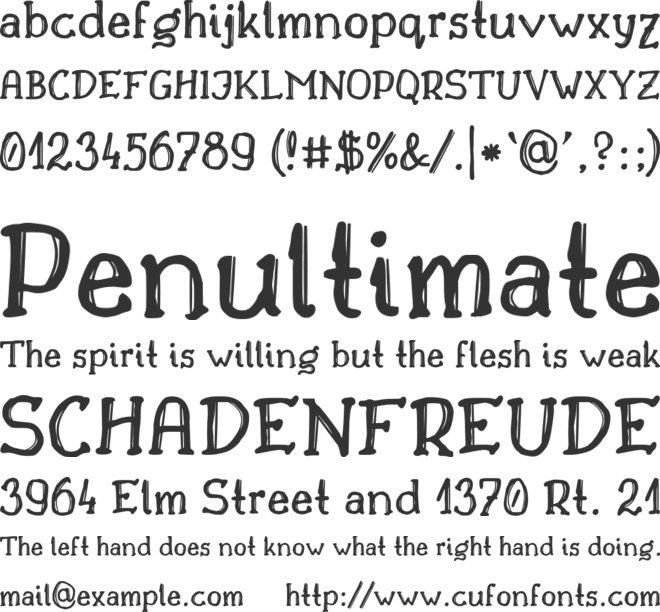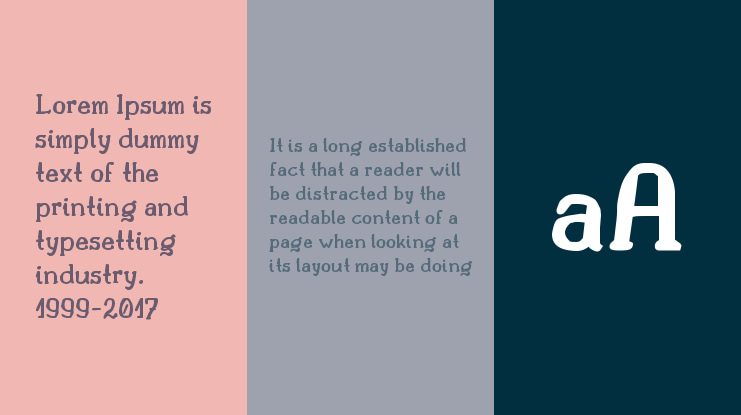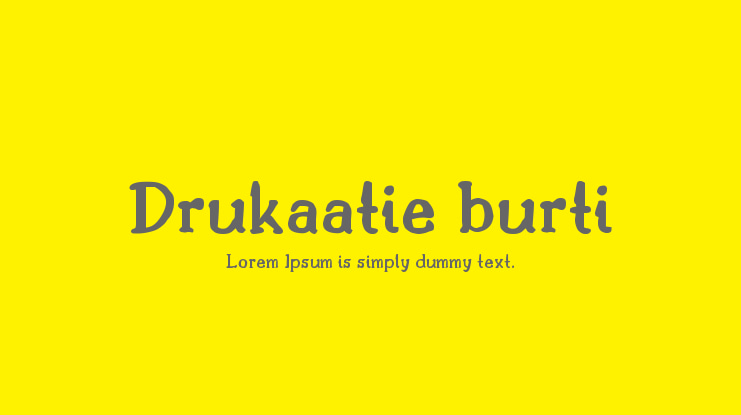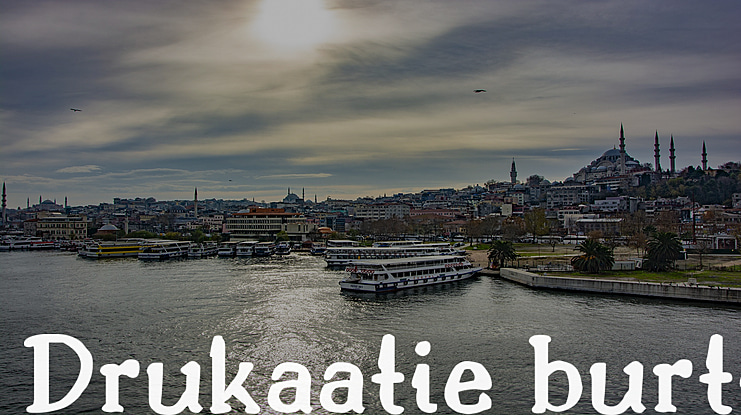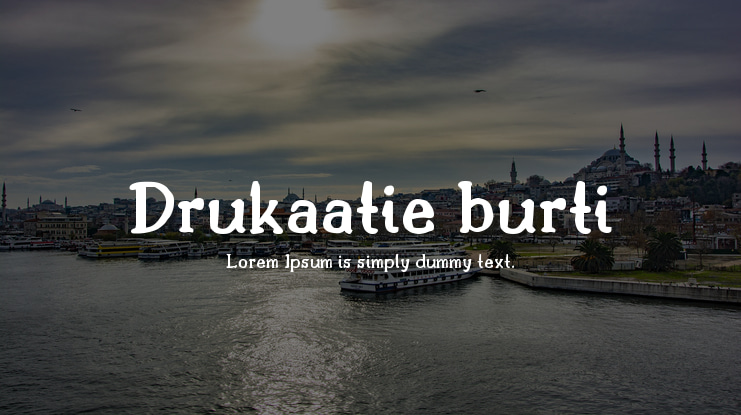
“DrukaatieBurti” is another technical handwriting font. The capital letters have the same height as „Liberation Serif” font. Texts formatted with „Drukaatie burti” (Regular) takes approximately the same space as texts formatted with „Liberation Serif Regular”.